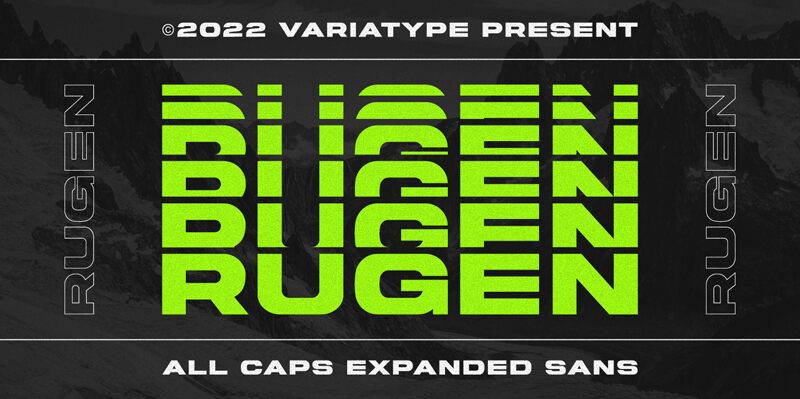
Rugen Expanded
With its extra-bold weight and extra-expanded width, Rugen Expanded is a powerful and attention-grabbing font that demands to be noticed. Designed by Variatype, this urban all-caps sans serif font is perfect for branding projects that require a bold and contemporary look.
Its strong presence on logos, headlines, and packaging designs will leave a lasting impression on your audience. Whether you're working on an edgy fashion campaign or a modern tech startup, Rugen Expanded is the ideal choice to make your brand stand out from the crowd.